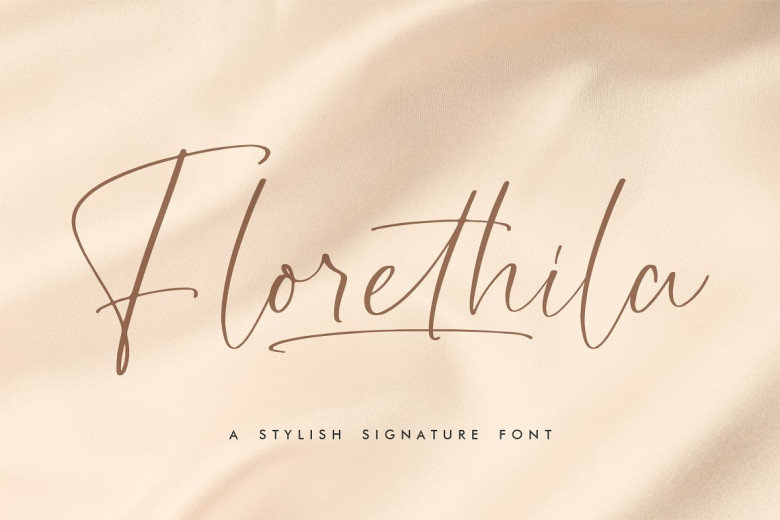
Florethila Font
Meet, Florethila – Stylish Signature Font! Proudly present by Storytype. It is a luxury script that has its style and a subtle modern look. This font is suitable for a luxurious and elegant logo; it is perfect for book or movie title design, fashion brand, magazine, clothes, lettering, and quotes.
Florethila Handwritten Script Font